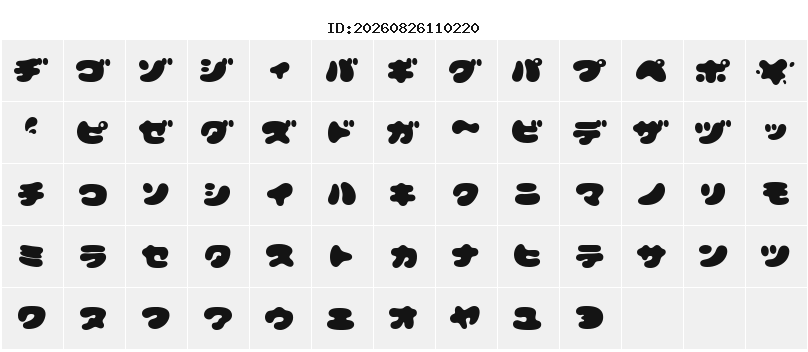
WaterFreshKana Preview
• Font Name: WaterFreshKana
• Font ID: Macromedia Fontographer 4.1J WaterFreshKana
• Full Font Name: WaterFreshKana
• Version: Macromedia Fontographer 4.1J 06.6.13
• PostScript Name: WaterFreshKana
About WaterFreshKana.ttf
WaterFreshKana.ttf is a modern, elegant sans-serif font designed for ultimate readability and visual harmony. Perfect for branding, headlines, web design, and print materials.